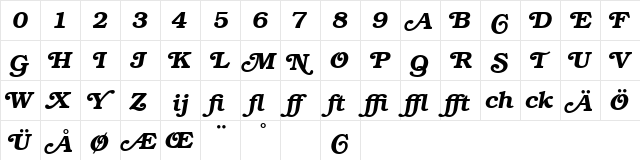
Bookman Profi Demi Italic
Design Context for Bookman Profi Typeface
Bookman Profi offers clean, dependable letterforms without strong stylistic allegiance, making it a practical choice for designers who need flexibility. The dynamic lean of this cut emphasises speed and emphasis in any layout.
Pro Tip: Use Bookman Profi for emphasis, pull quotes, and subheadings where its slanted energy can add rhythm to the layout.